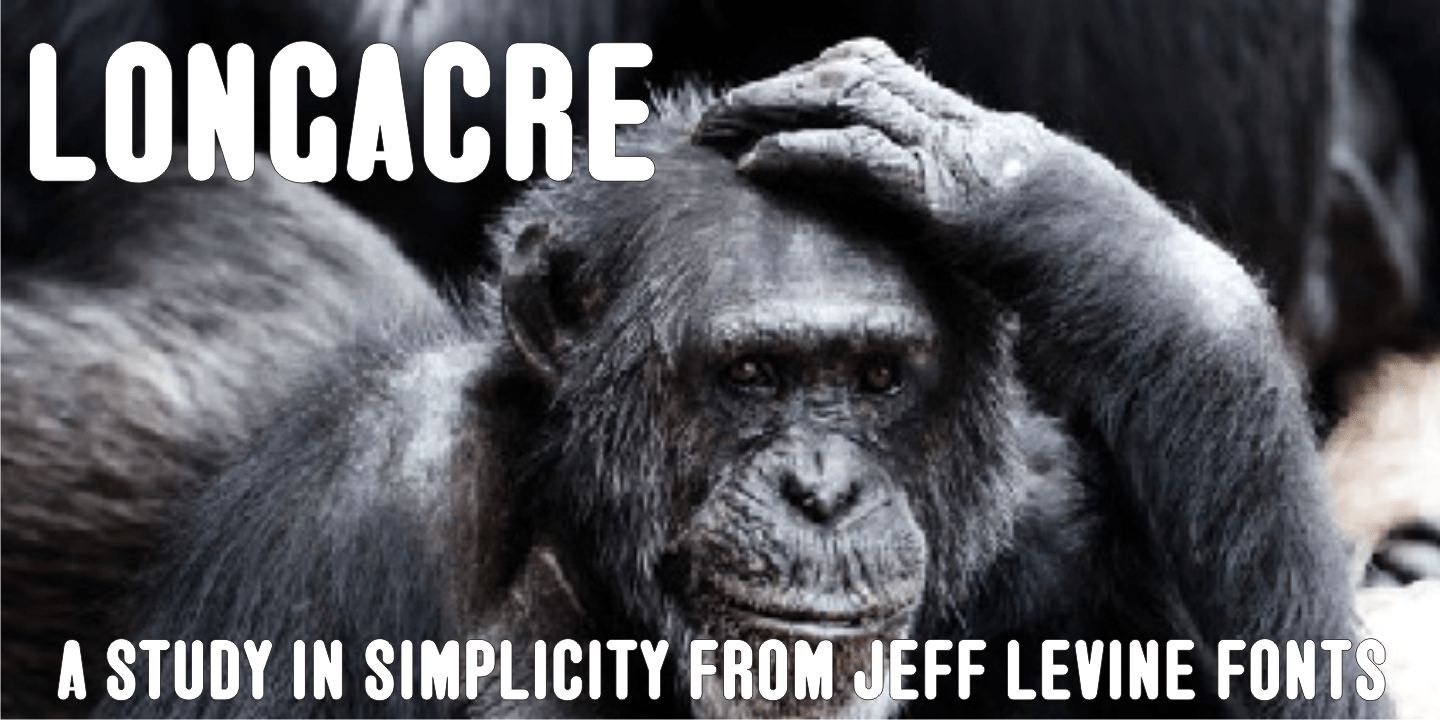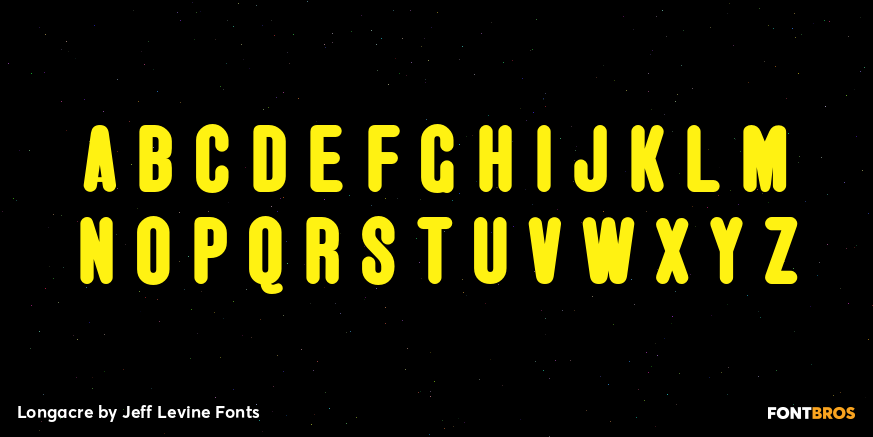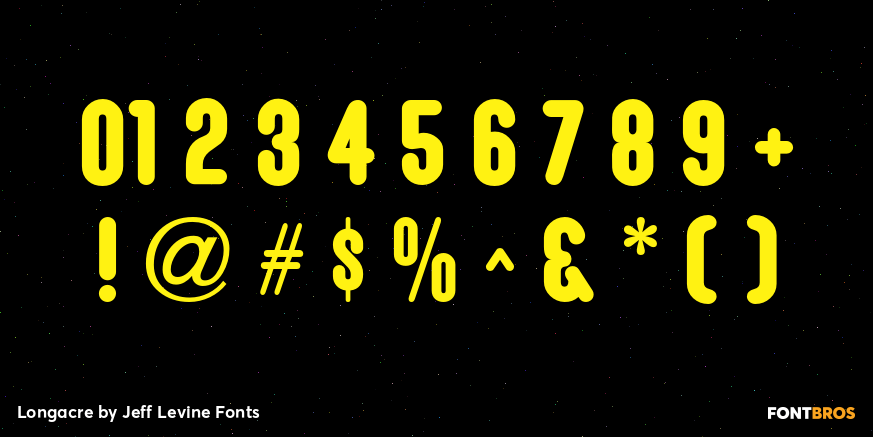
Longacre
Longacre JNL is bold. It's condensed. It has rounded ends. The design is both eye-catching and casual; perfect for titling that needs to make a point without being overwhelming.
Based on a set of wood type, this design also offers an inference of child-like simplicity, as it is very similar to the type of lettering found on classroom bulleting boards.